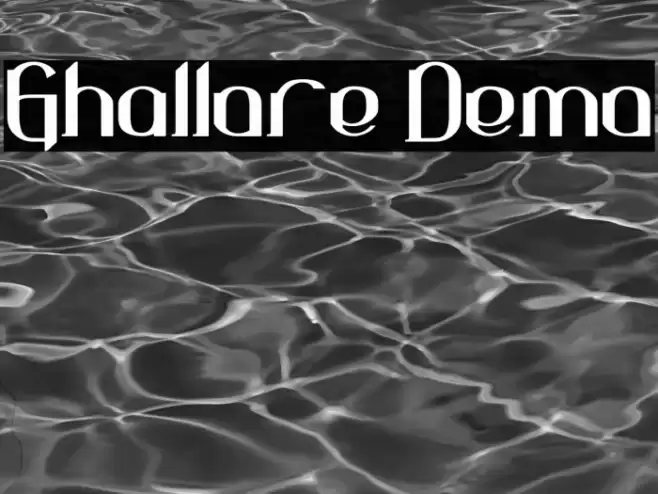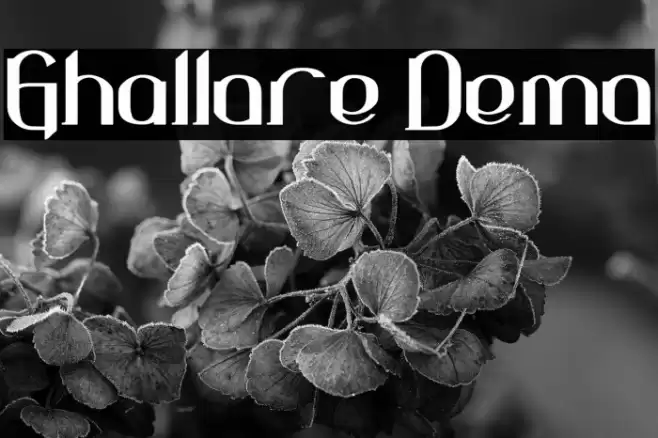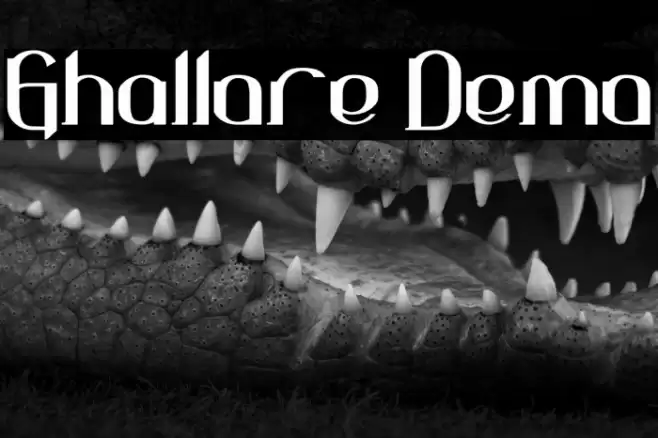
Ghallore Demo Font
Ghallore Demo Description
This font features a modern and elegant design with clean lines and a sophisticated appearance. The uppercase letters are bold and prominent, while the lowercase letters maintain a consistent style that complements the overall look. The numerals are clear and easy to read, making them suitable for various applications. Special characters are well-integrated, adding versatility to the font. The overall design is balanced, making it suitable for both digital and print media. Its contemporary style makes it ideal for branding, advertising, and editorial design.
A modern, elegant font with clean lines and a sophisticated appearance from Decorative fonts.
- Font: Ghallore Demo
- Proposed Projects: Ideal for branding, advertising, editorial design, and digital media.
- Use Case: Headlines, Logos, Branding